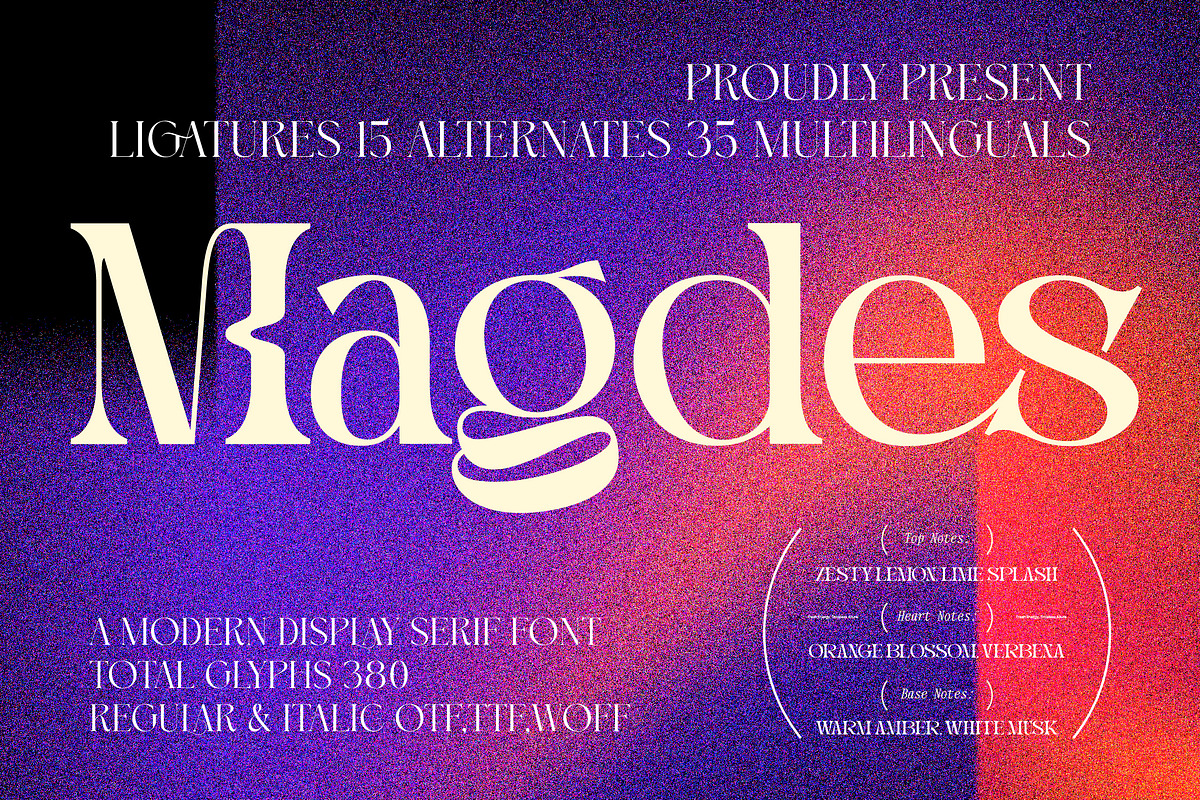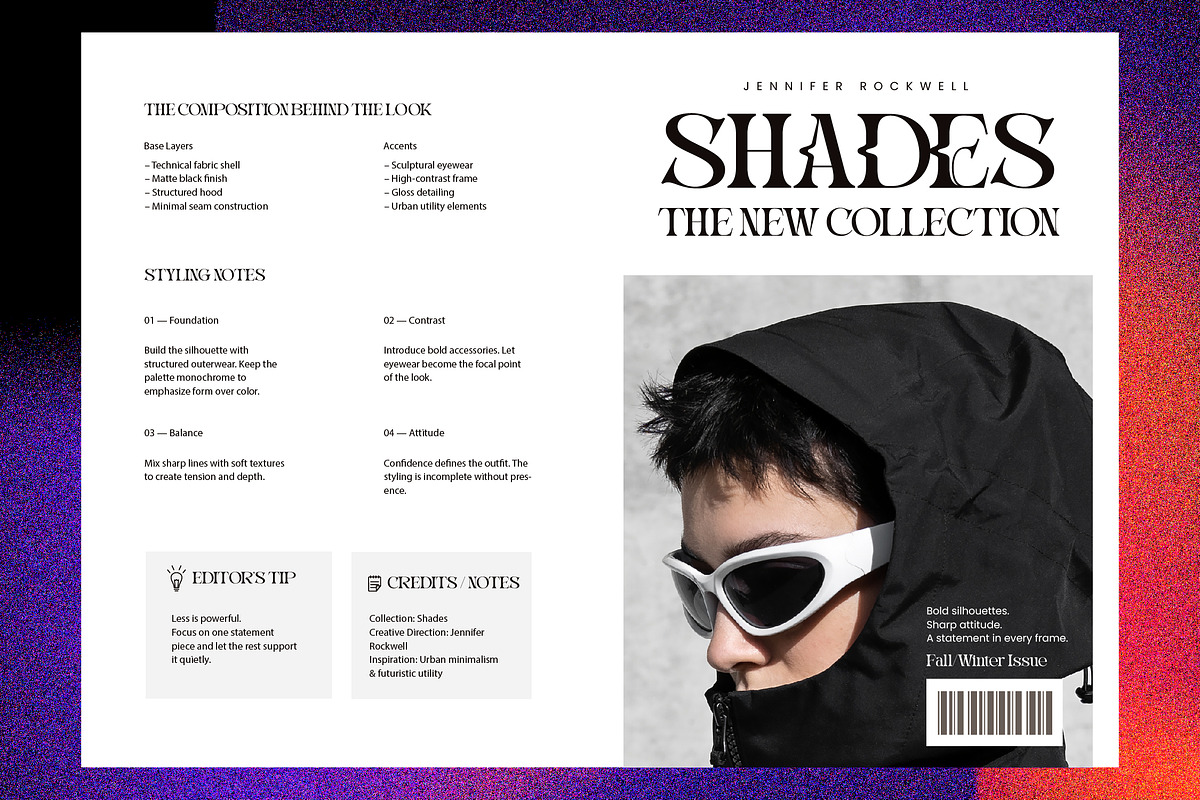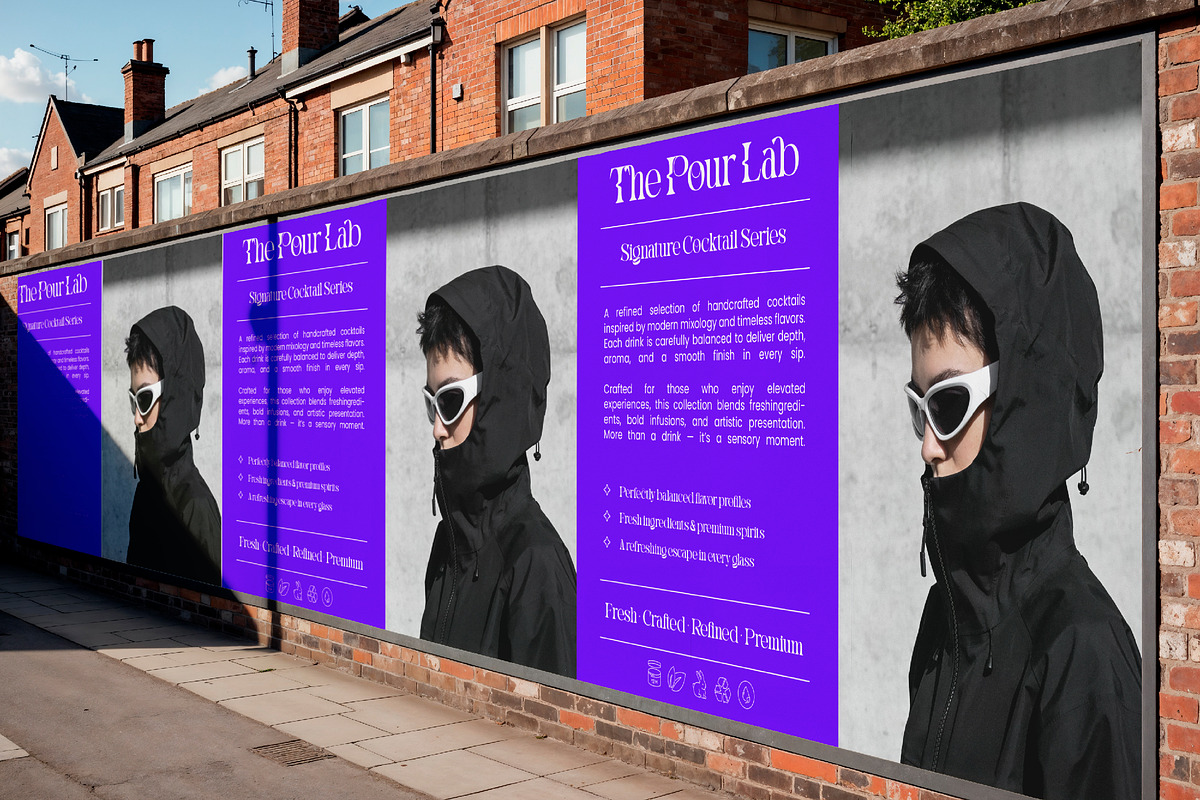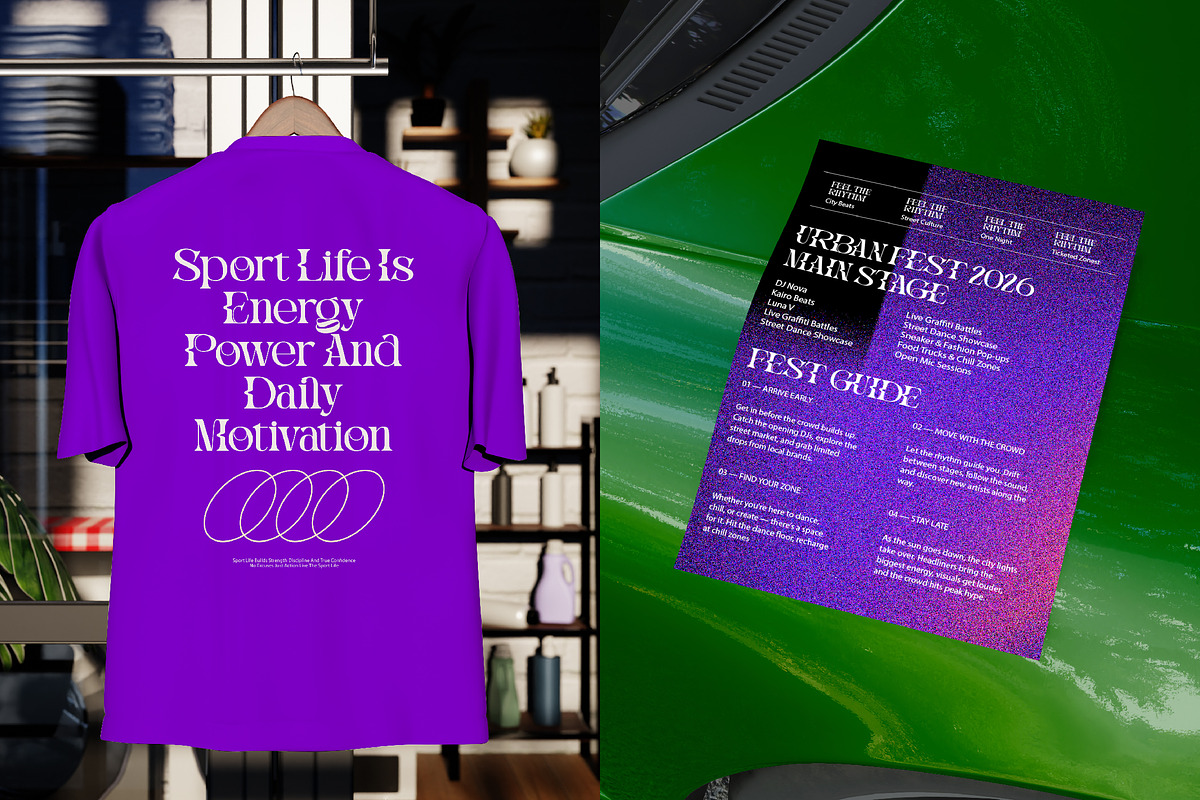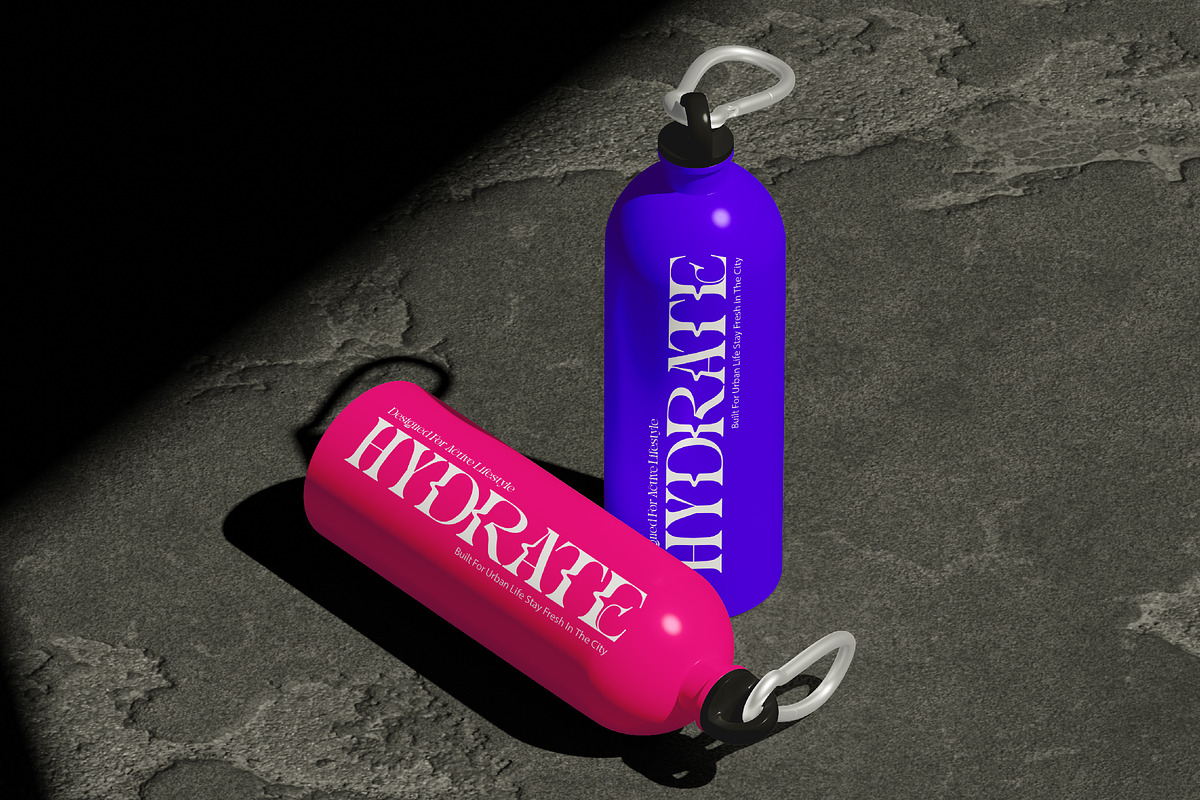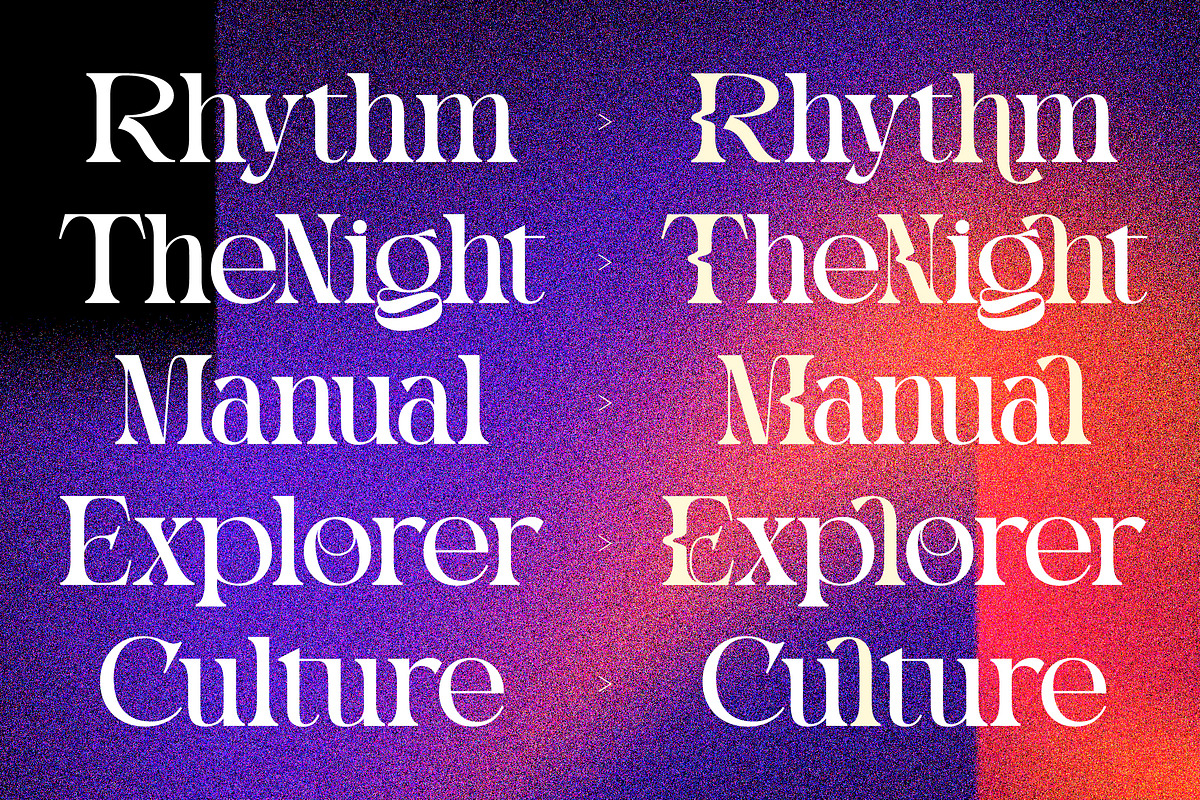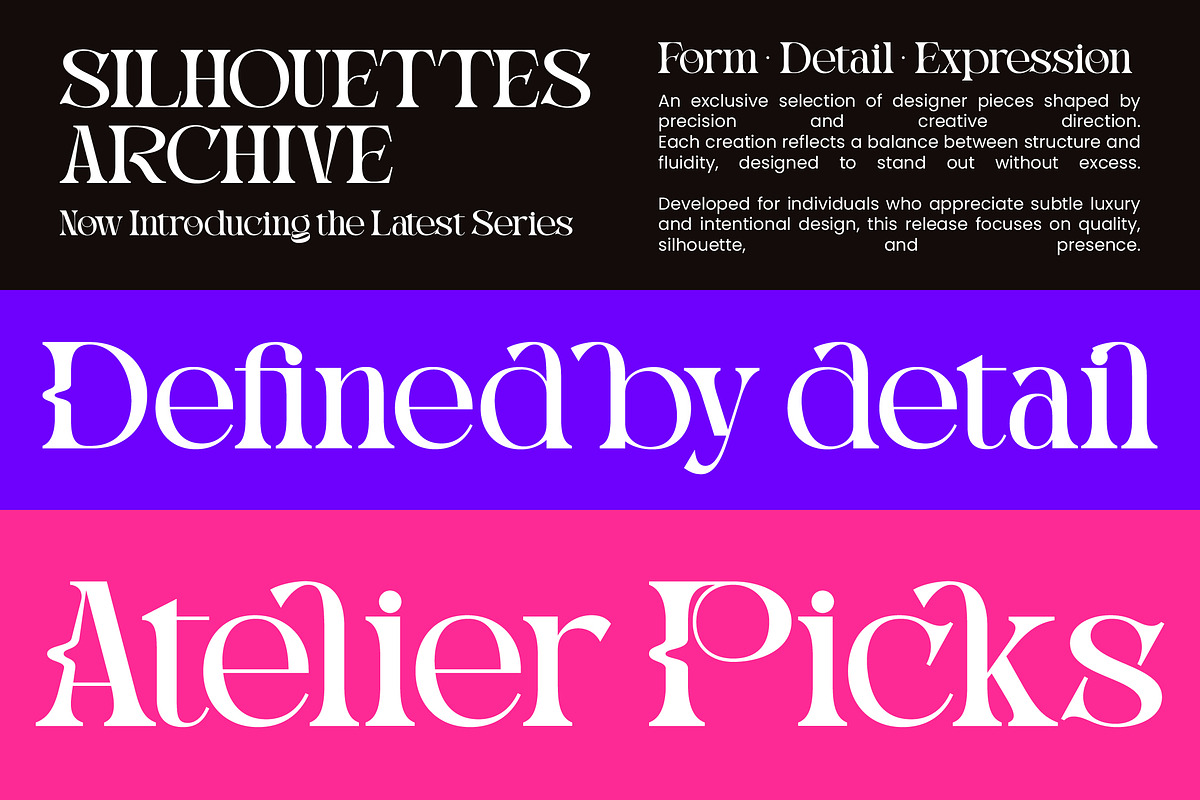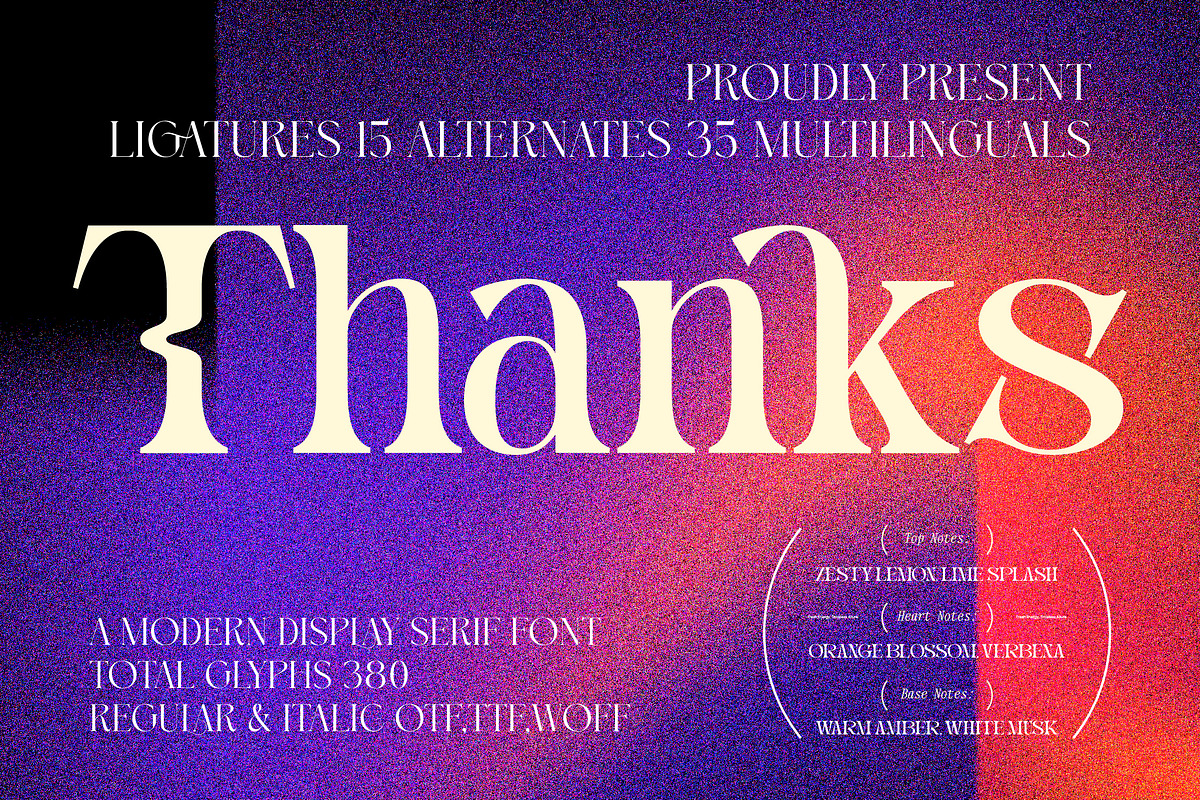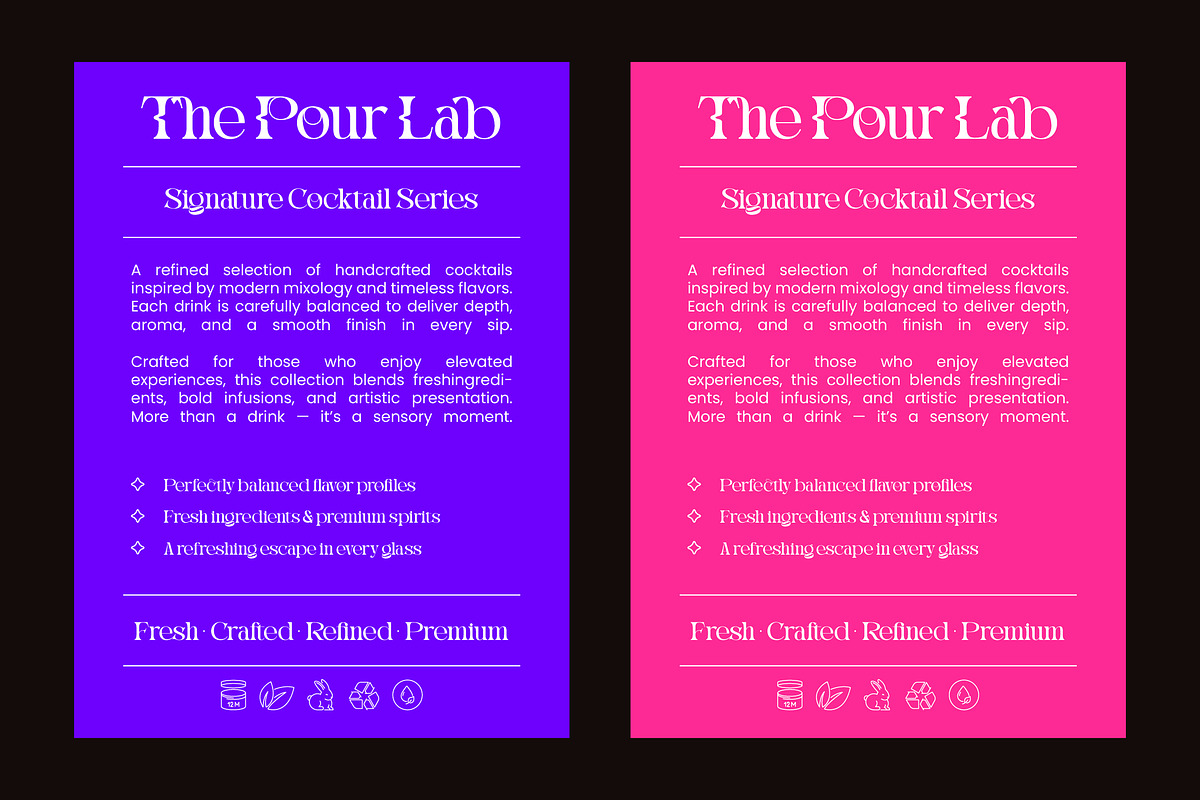
Magdes Modern Display Serif Font
Magdes – Modern Display Serif Font , Elevate your visual identity with a typeface that embodies pure sophistication. Magdes – Modern Display Serif Font is a masterclass in high-contrast design, blending sharp, contemporary serifs with fluid, artistic curves. This premium display font captures a sense of timeless luxury while maintaining a bold, forward-thinking edge. Whether you are crafting a minimalist logo or a high-end editorial layout, Magdes – Modern Display Serif Font provides the visual weight and elegance required to captivate a discerning audience.
Unleash limitless creativity with an extensive set of typographic assets. Boasting a comprehensive collection of 380 glyphs, including 15 unique ligatures and 35 stylistic alternates, Magdes – Modern Display Serif Font allows for total creative control over every headline. The availability of both Regular and Italic styles ensures rhythmic variety and depth within your designs. With its extensive multilingual support, Magdes – Modern Display Serif Font adapts seamlessly across global markets, making it incredibly versatile for international projects.
Position your brand at the forefront of the industry with high-impact applications. This typeface is the perfect choice for luxury branding, perfume packaging, fashion magazines, and high-end jewelry marketing. Its refined character makes it an ideal application for premium product labels, identity systems, and sophisticated web design. Because Magdes – Modern Display Serif Font commands attention without sacrificing legibility, it excels in contexts where visual excellence and brand prestige are paramount.